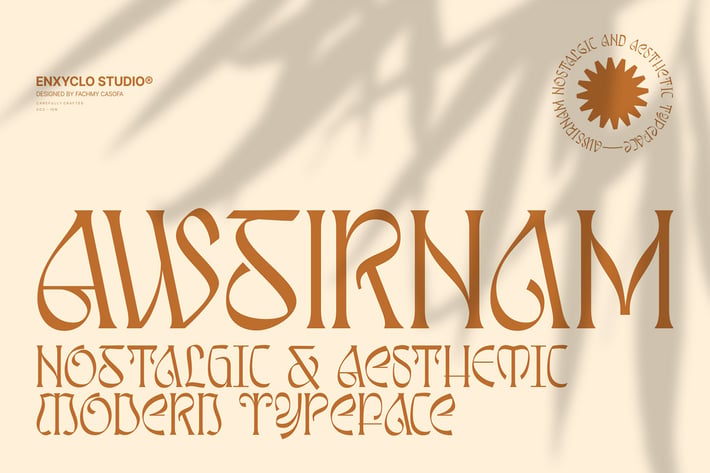
Awsirnam - Aesthetic Serif Font
Awsirnam is a contemporary all-caps serif display font that blends bold, flowing curves with sharp, angular accents, creating a striking balance between futuristic elements and subtle touches of nostalgia. This typeface embodies a classic and nostalgic feel while incorporating modern elements. With its elegant curves and unique variations, this font is perfectly suited for any creative project. It was purposely crafted to be used in large point sizes, although it doesn’t lose its magic in small point sizes. It is perfect for headline, digital ads, magazines, website, poster, branding, and logos. No matter the topic, this font will be an incredible asset to your fonts’ library, as it has the potential to elevate any creation. With this beautiful font, absolutely you can make your project stand out from the rest.
- 258 Unique Glyphs
- Alternate
- Uppercase & Lowercase
- Numeral, Punctuation & Symbols